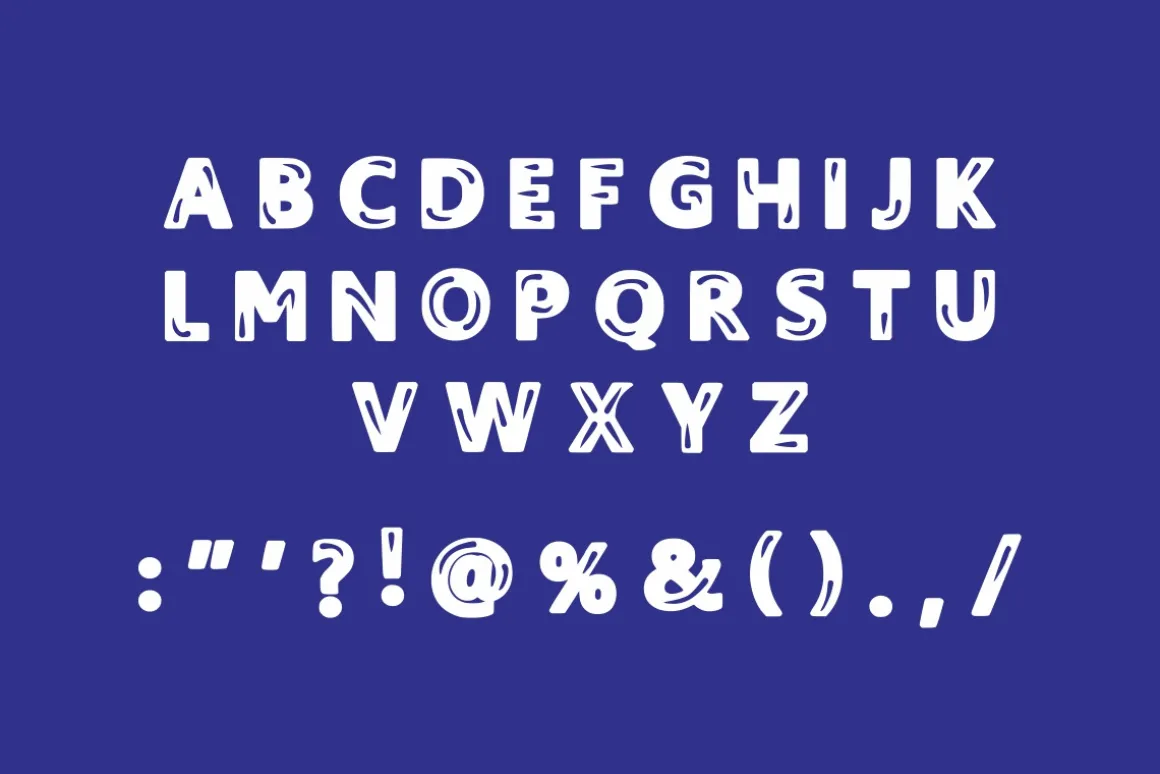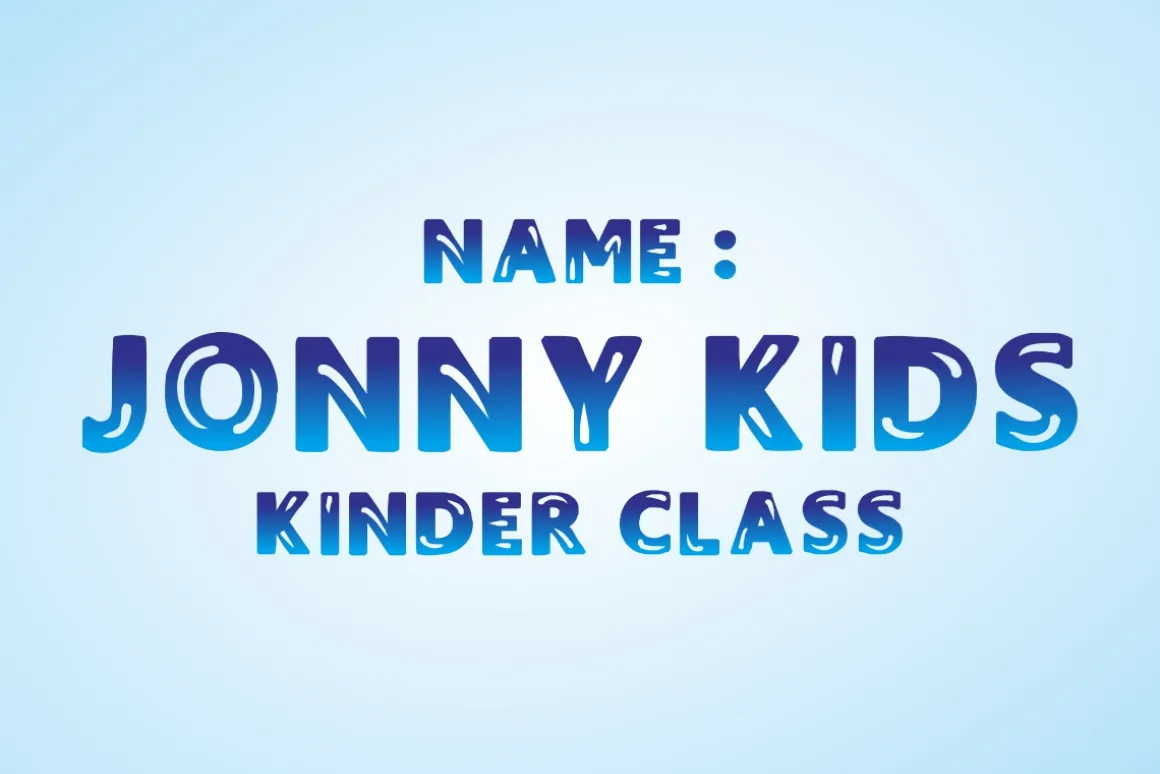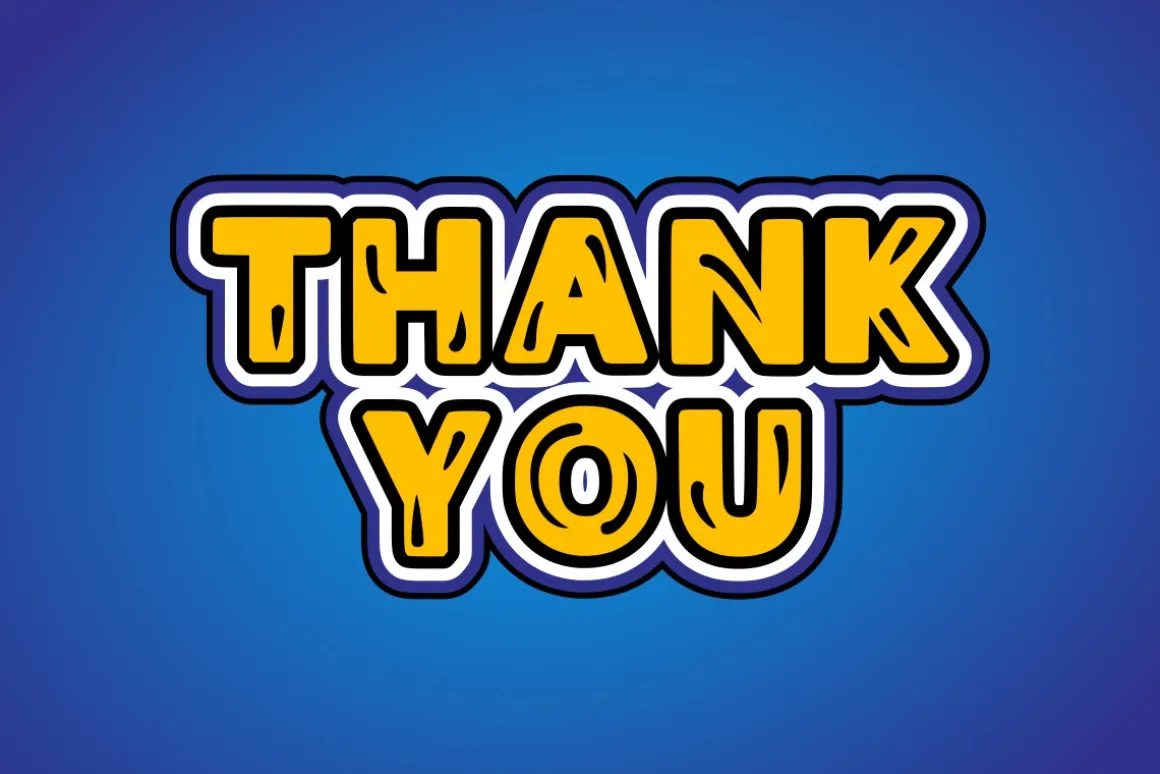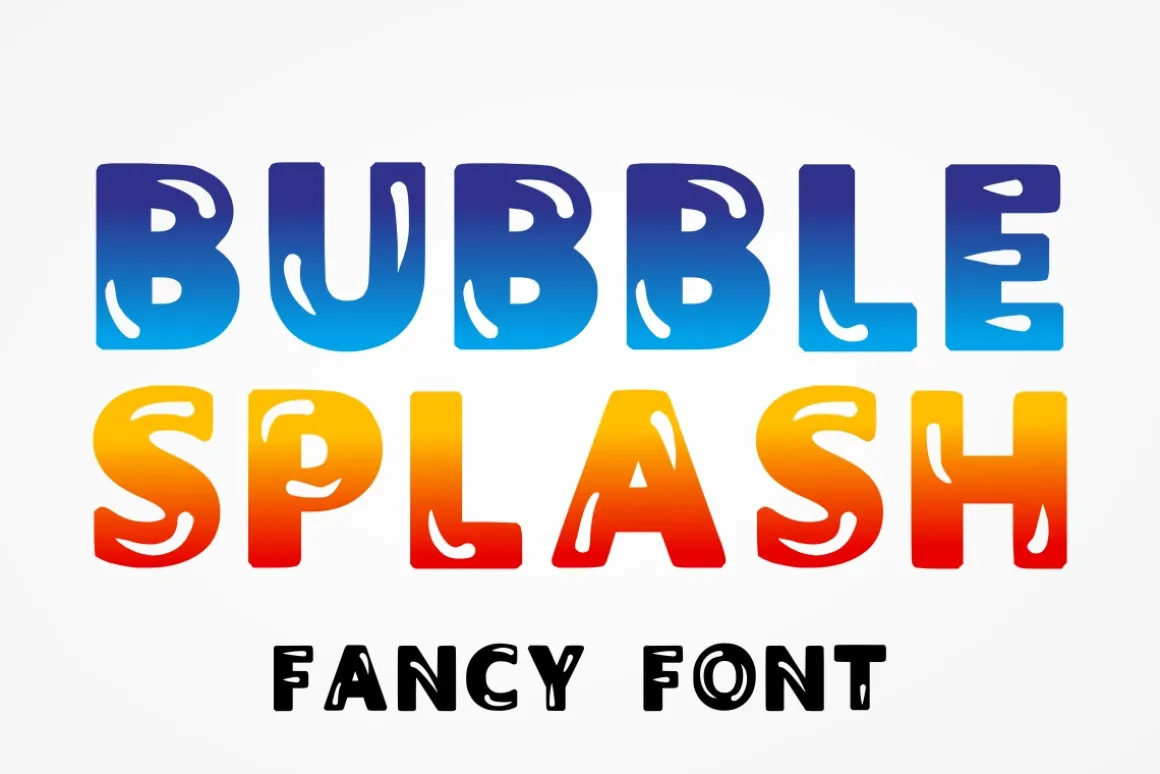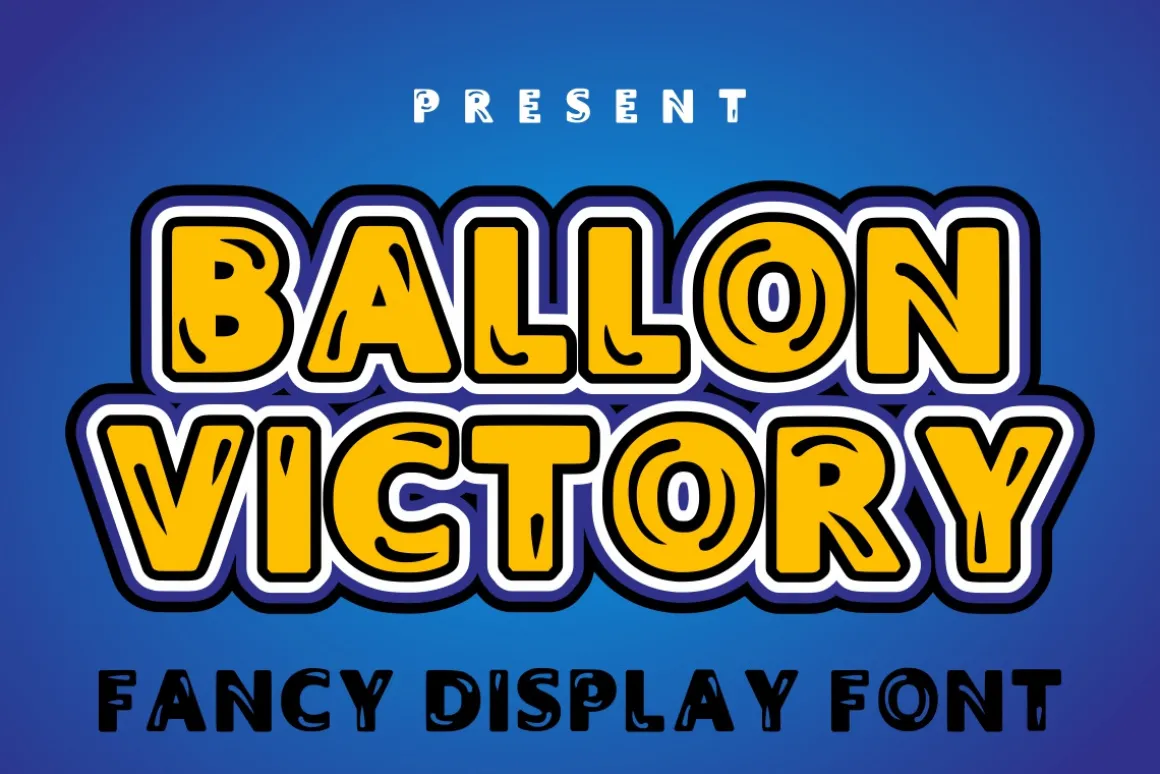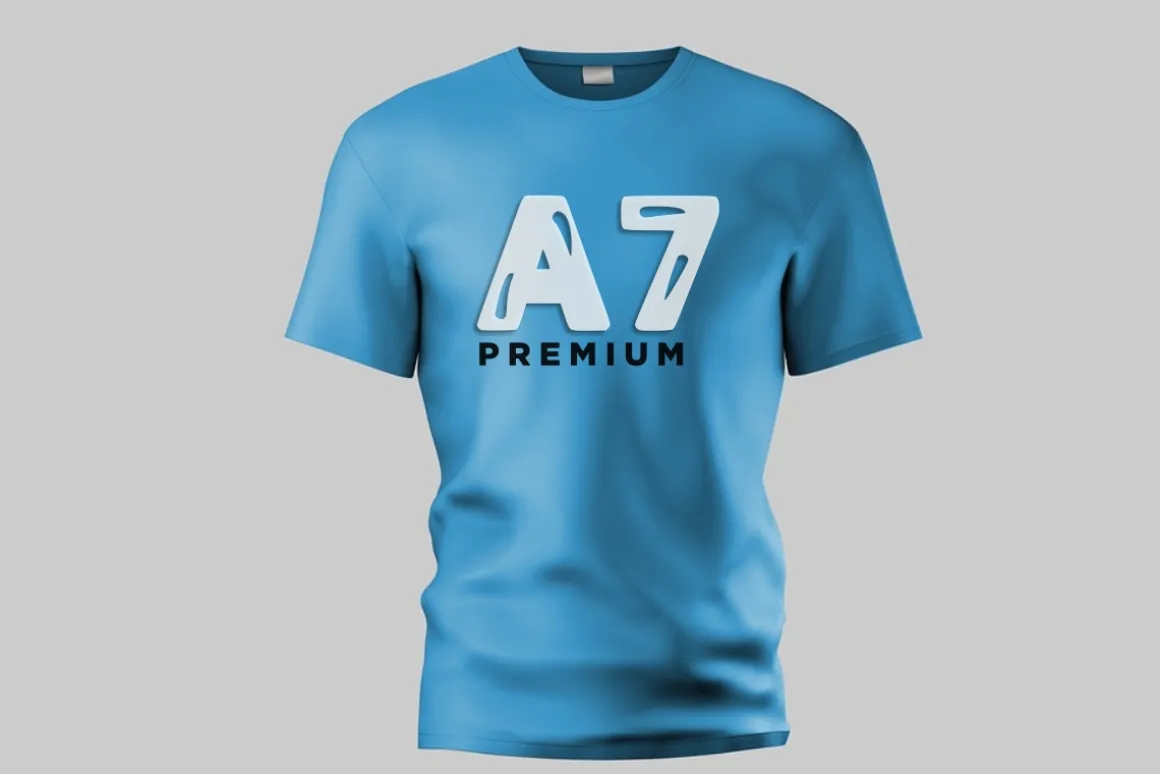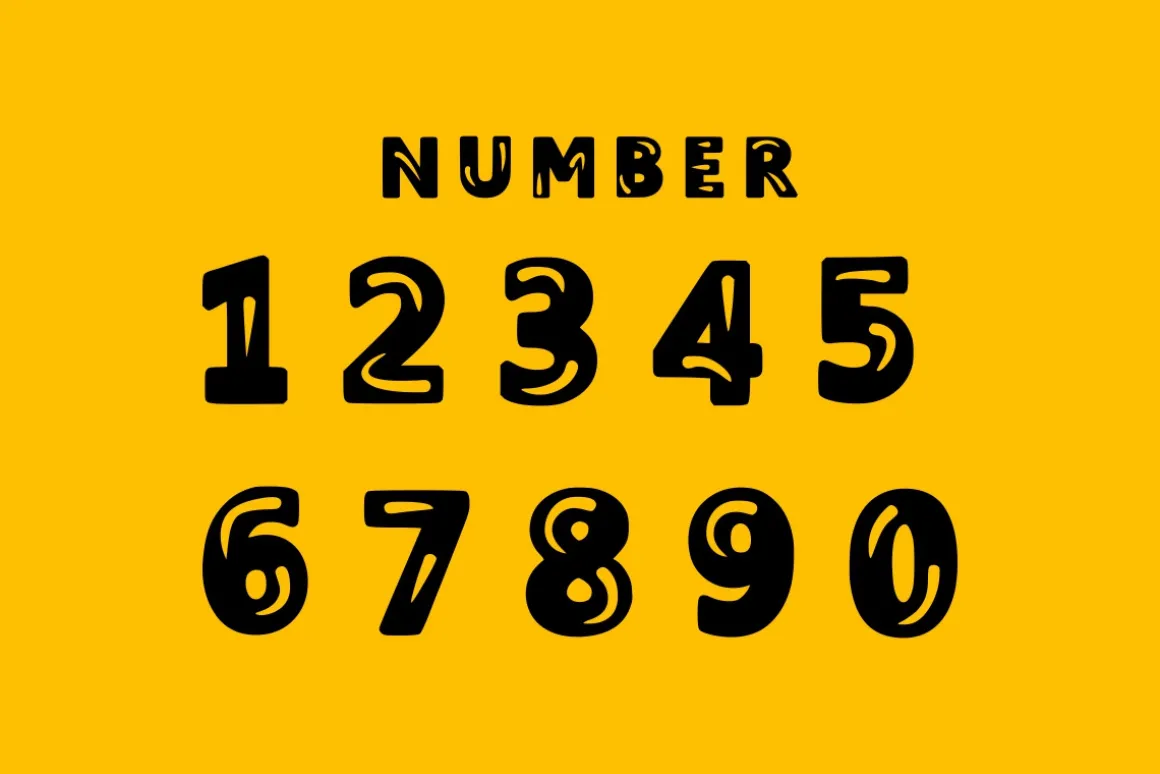
Ballon Victory is a bold, childish, easy-to-read display font that conveys impeccable friendliness. Whether you’re using it for crafts, digital design, text effect, presentations, or greeting cards, this font has the potential to become your favorite go-to font.